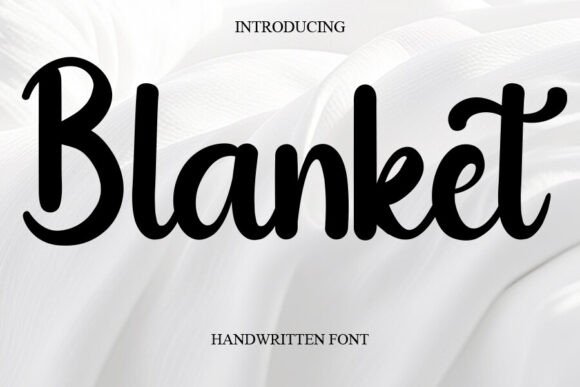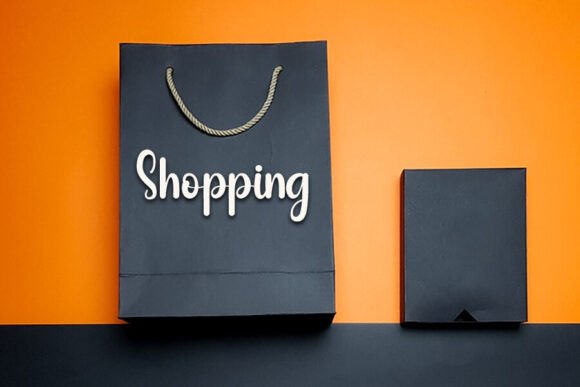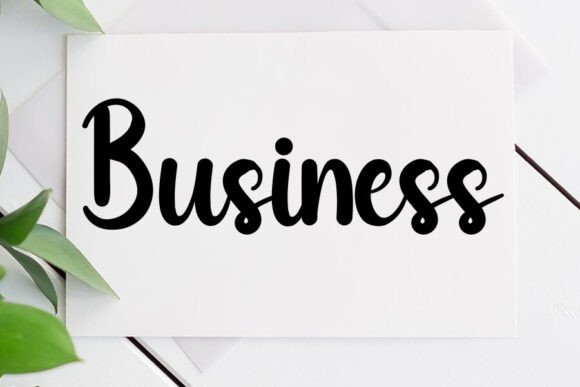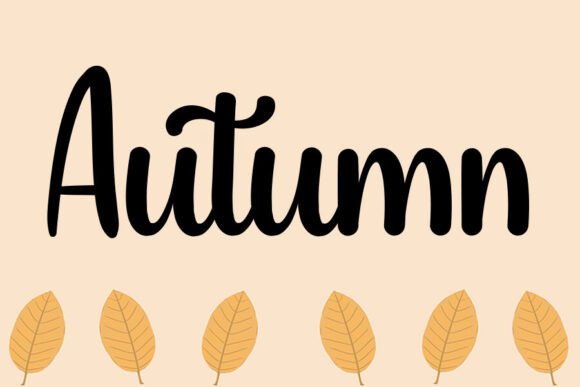
Blanket Font: Sweet Cursive Handwritten Font for Branding & Wedding Invitations
About the Blanket Font
Make a bold statement with Blanket Font, a powerful and memorable font. Blanket is a sweet and cursive handwritten font. This gentle font will look gorgeous on a variety of design ideas. It will add a joyful and romantic touch to each of your projects! Perfectly fit for branding, logo, wedding things, greeting cards, fashion, lookbook, marketing promotion, and any time you want your design to look fancy and elegant but still casual.
Blanket’s gentle curves and delicate strokes make it ideal for headlines, short text blocks on invitations or packaging, and logos requiring a touch of handwritten charm. However, its cursive nature makes it unsuitable for body copy or UI elements where readability is paramount. Long paragraphs set in Blanket would be difficult to decipher.
Its soft, romantic personality pairs well with clean sans-serif fonts like Lato or Open Sans for a balanced contrast. For a more playful feel, consider pairing it with a rounded geometric sans-serif like Montserrat. A classic serif like Playfair Display could also add sophistication, creating a refined and elegant pairing.
Blanket is best suited for brands emphasizing femininity, handcrafted quality, or a romantic aesthetic. Think artisanal goods, wedding stationery, or boutique fashion brands. Its charm and casual elegance avoid feeling overly formal or stiff.
Blanket Font Usage Examples
Blanket Font Example